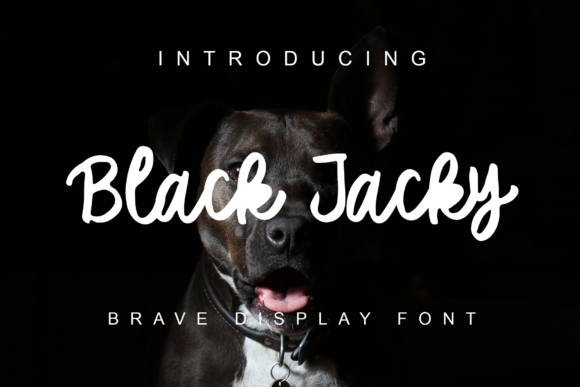
The Perfect Purr-fect Font for Designers: Black Jacky Font
Have you ever been working on a project and suddenly, a spark of creativity strikes? Maybe it’s a quirky idea, a funny joke, or even a cute animal face that pops into your head. For designers like you, these moments of inspiration are what make the job truly rewarding. And today, we’re excited to share one such spark that’s sure to put a smile on your face – the adorable Black Jacky Font.
Black Jacky Font is a charming display font that’s perfect for animal lovers. Its unique and playful character makes it ideal for logos, posters, quotes, cards, and more. Whether you’re working on a project for a pet store, a zoo, or even just a fun social media post, Black Jacky Font is sure to bring a touch of whimsy and personality to your design.
Black Jacky Font Key Features
- Font Family: Black Jacky is a unique, hand-drawn font designed to evoke a sense of elegance and sophistication.
- Unique Characteristics: Features a distinctive, handwritten style with varying line widths and subtle imperfections, giving it a personal and authentic feel.
Designer Review: Black Jacky Font
I recently had the chance to work with the Black Jacky font, and I must say it’s a unique addition to any design project. ✨ One of the things that immediately stood out to me was its playful, handwritten feel, which is perfect for adding a touch of whimsy to a design.
Here are some of the things I like about Black Jacky:
- ✨ Its irregularities and imperfections give it a very human, hand-drawn feel that’s perfect for projects where you want to convey a sense of personality.
- ✨ It’s incredibly versatile, working well for both digital and print projects, from social media graphics to packaging and branding.
- ✨ The font comes in a range of weights, from light to bold, making it easy to adjust to suit your design needs.
- ⚠️ The font can be a bit difficult to read in certain contexts, particularly in small sizes or when used for large blocks of text.
- ⚠️ Some of the letters can be quite ornate, which may make it difficult to pair with other fonts in certain situations.
Overall, I think Black Jacky is a great addition to any designer’s toolkit. While it may not be perfect for every project, its unique feel and versatility make it a great choice for adding some personality to your designs.
Tips for Getting the Most Out of Black Jacky Font
Black Jacky Font is a unique and eye-catching font, perfect for creating attention-grabbing designs. Here are some tips to get the most out of it:
- Use it sparingly to create a bold and dramatic effect.
- Pair it with contrasting colors to make it stand out.
Common Use Cases for Black Jacky Font
Black Jacky Font is perfect for:
- Creating bold and eye-catching headlines
Alternatives to Black Jacky Font
Great Vibes Font is a modern, elegant script font that is ideal for titles and headings. It is perfect for creating a sophisticated and luxurious feel in your designs. When to use: For formal events, luxury brands, or high-end products. Comparison: While Black Jacky Font has a more playful feel, Great Vibes Font is more refined and sophisticated.
Pacifico Font is a beautiful, cursive font that is great for creating a relaxed and beachy vibe. It is perfect for travel, food, or wellness brands. When to use: For summer campaigns, outdoor events, or brands that want to evoke a sense of relaxation. Comparison: Pacifico Font is more casual and laid-back than Black Jacky Font, but still has a touch of elegance.